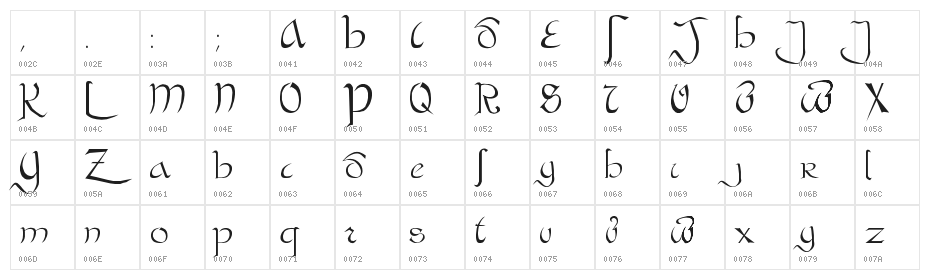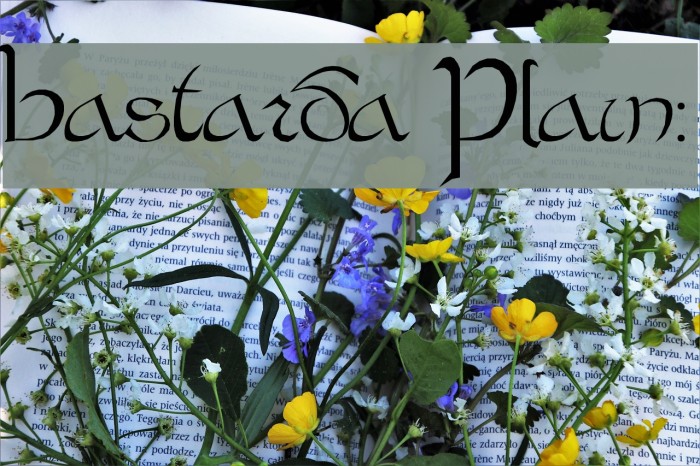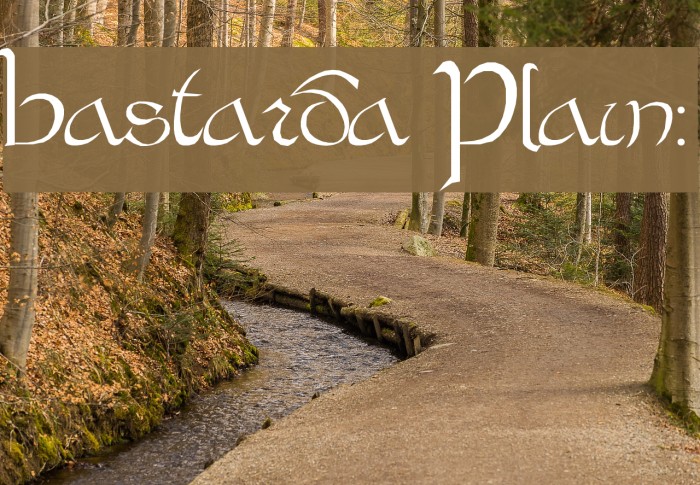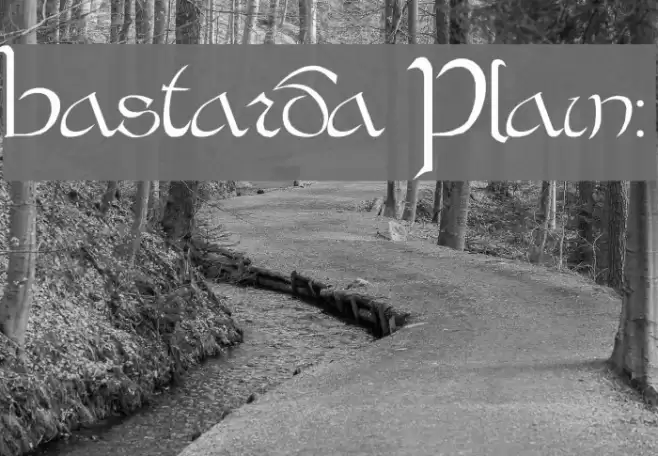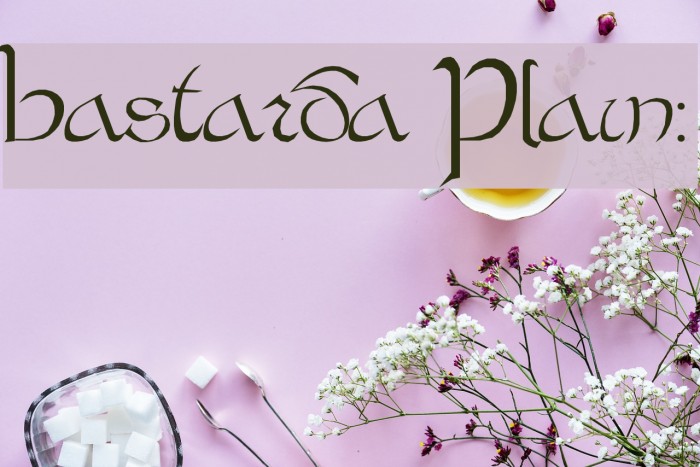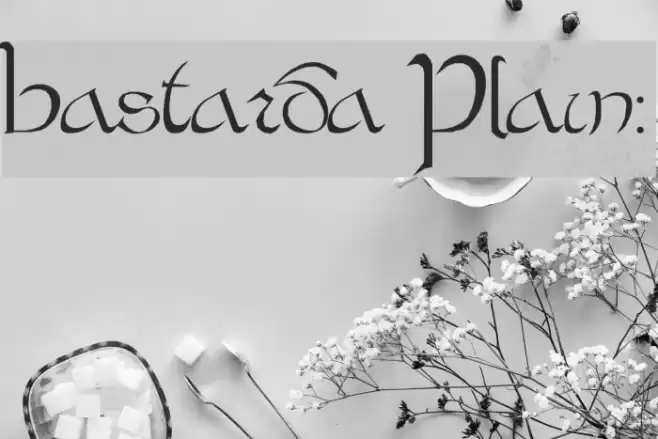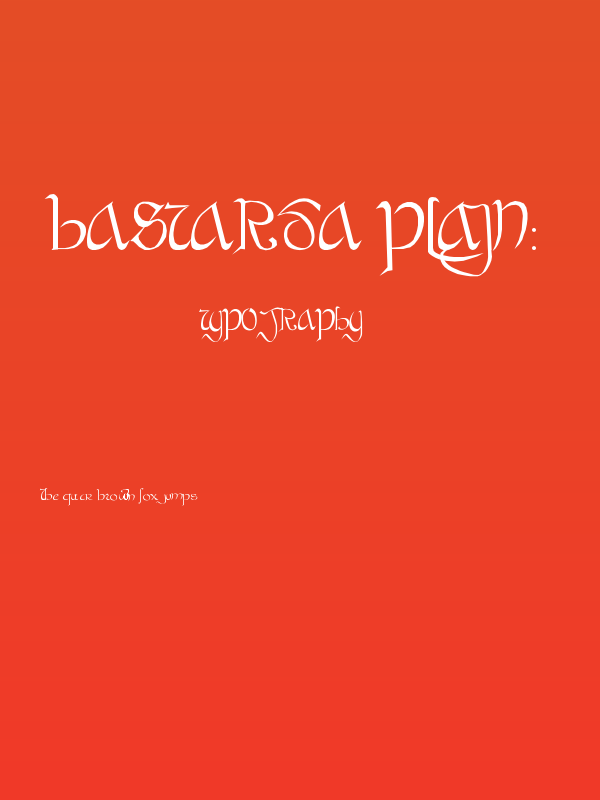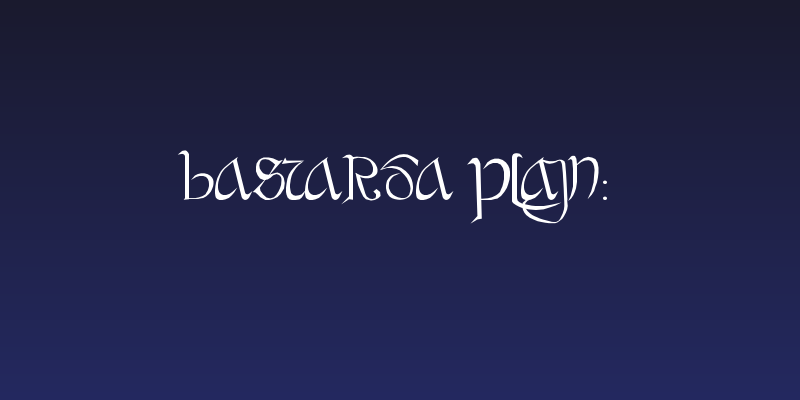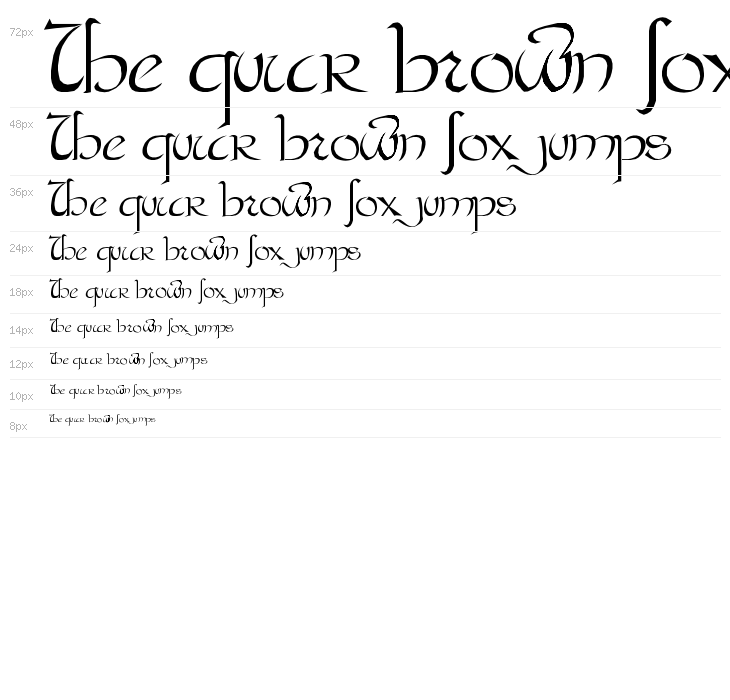
Bastarda Plain: Font
Bastarda Plain: Description
This font exhibits a traditional and ornate style reminiscent of medieval script. It features elaborate and intricate letterforms with sharp angles and decorative flourishes. The uppercase letters are particularly striking, with bold strokes and unique shapes that give them a distinctive appearance. The lowercase letters maintain the same level of detail, with elegant curves and a consistent flow. The overall design is highly decorative, making it suitable for projects that require a historical or classical touch. The font's unique style is both eye-catching and sophisticated, ideal for creating a dramatic visual impact.
| Use Case | Logos, Headlines |
| Proposed Projects | Ideal for historical documents, wedding invitations, book covers, and theatrical posters. |